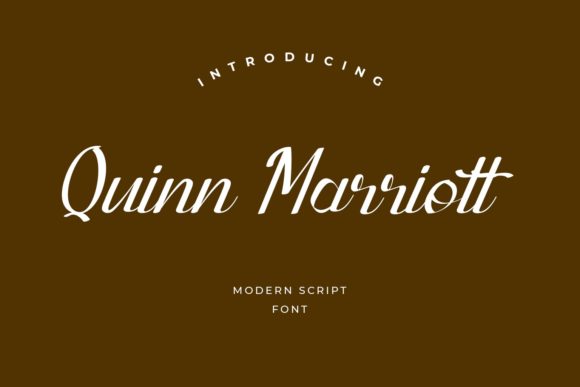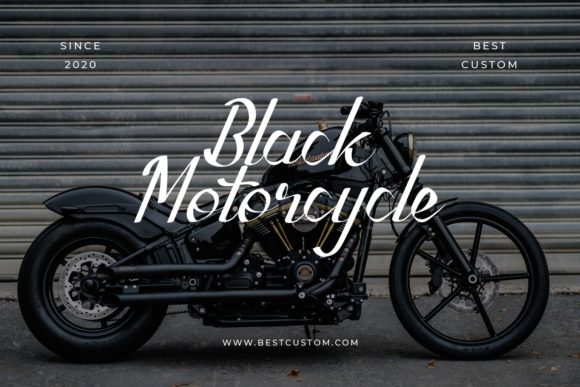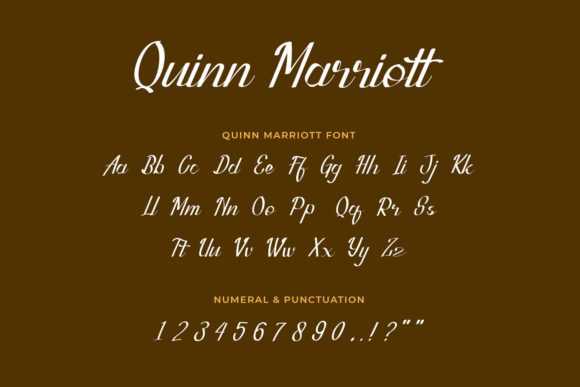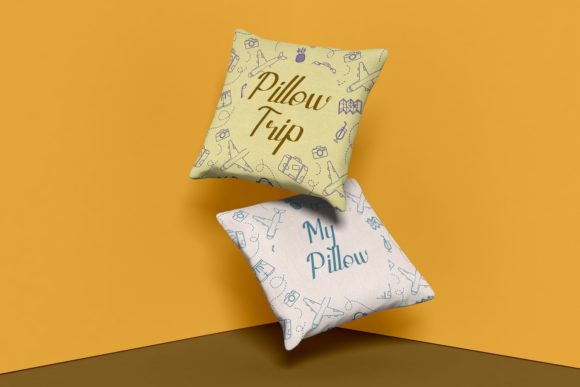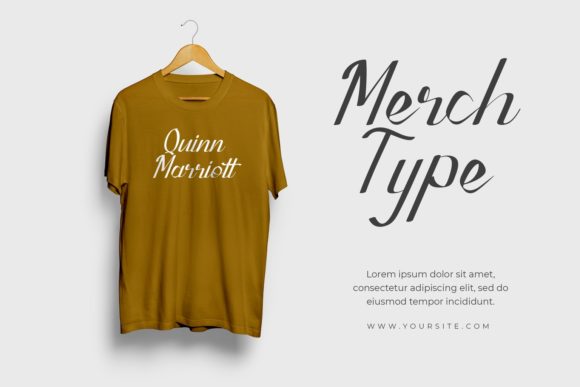
Quinn Marriott Font
About Quinn Marriott Font
Quinn Marriott is a delicate, elegant and flowing handwritten font. It has beautiful and well balanced characters and as a result, it matches a wide pool of designs. Add it to your most creative ideas and notice how it makes them come alive!